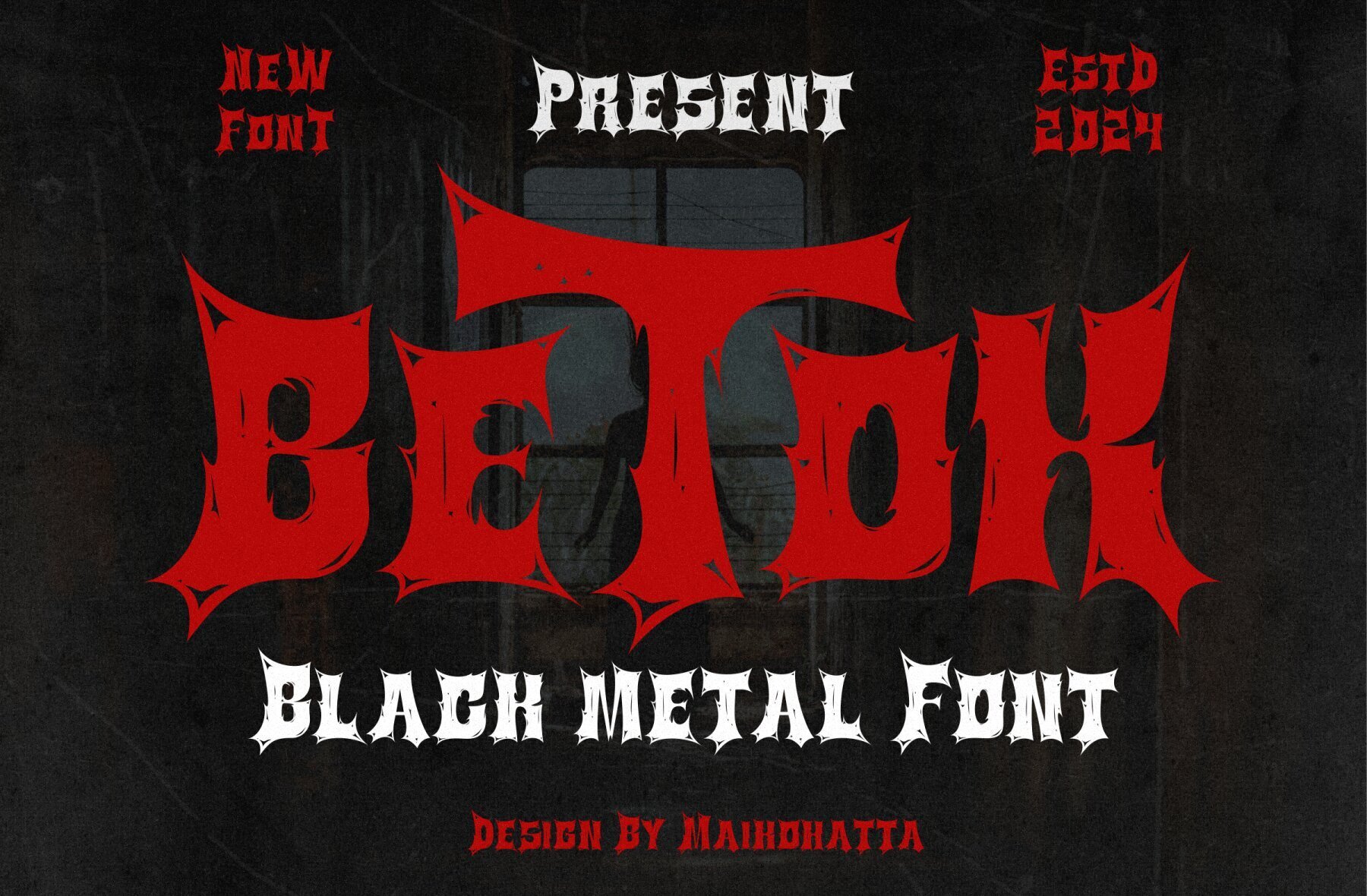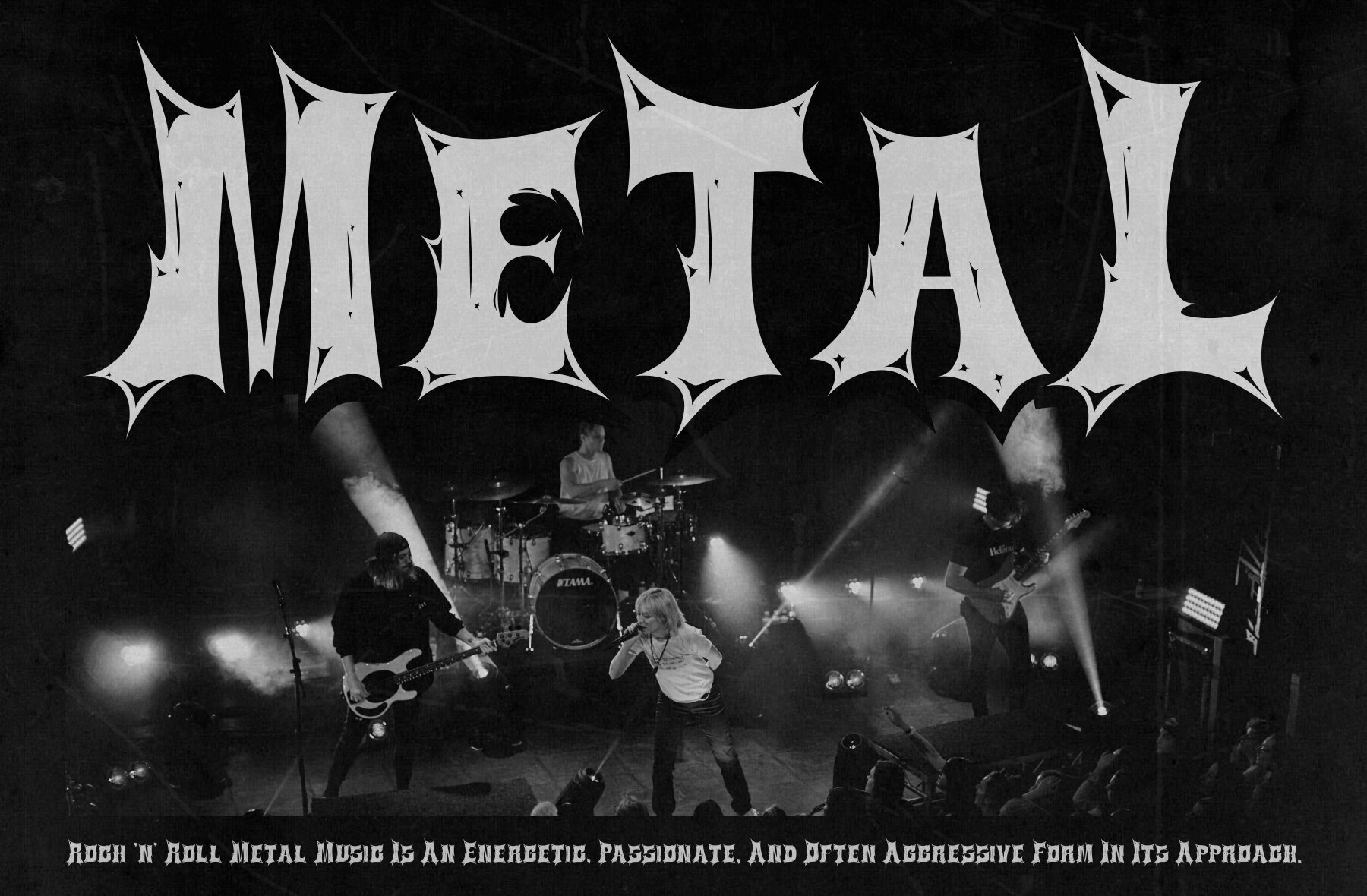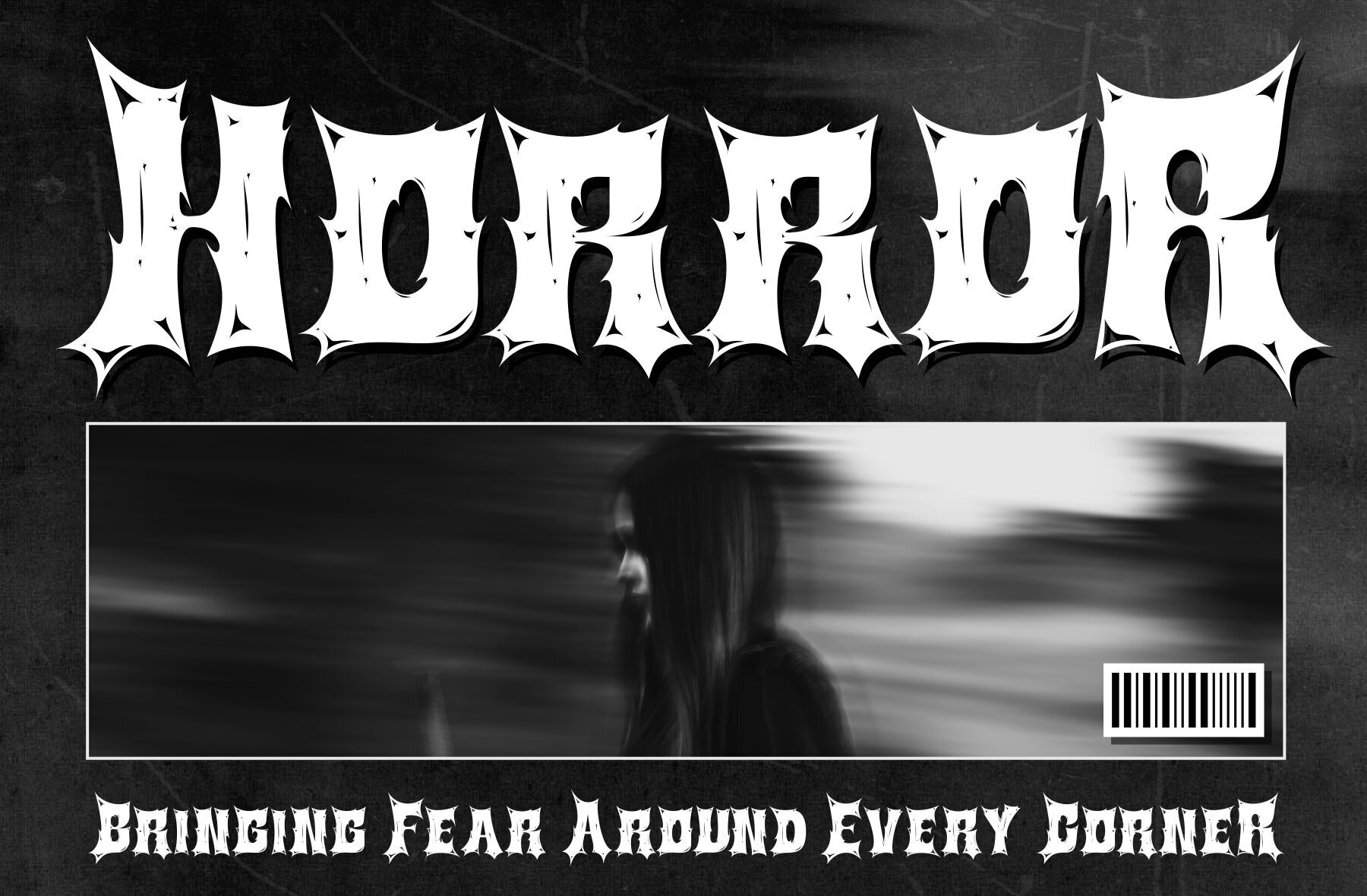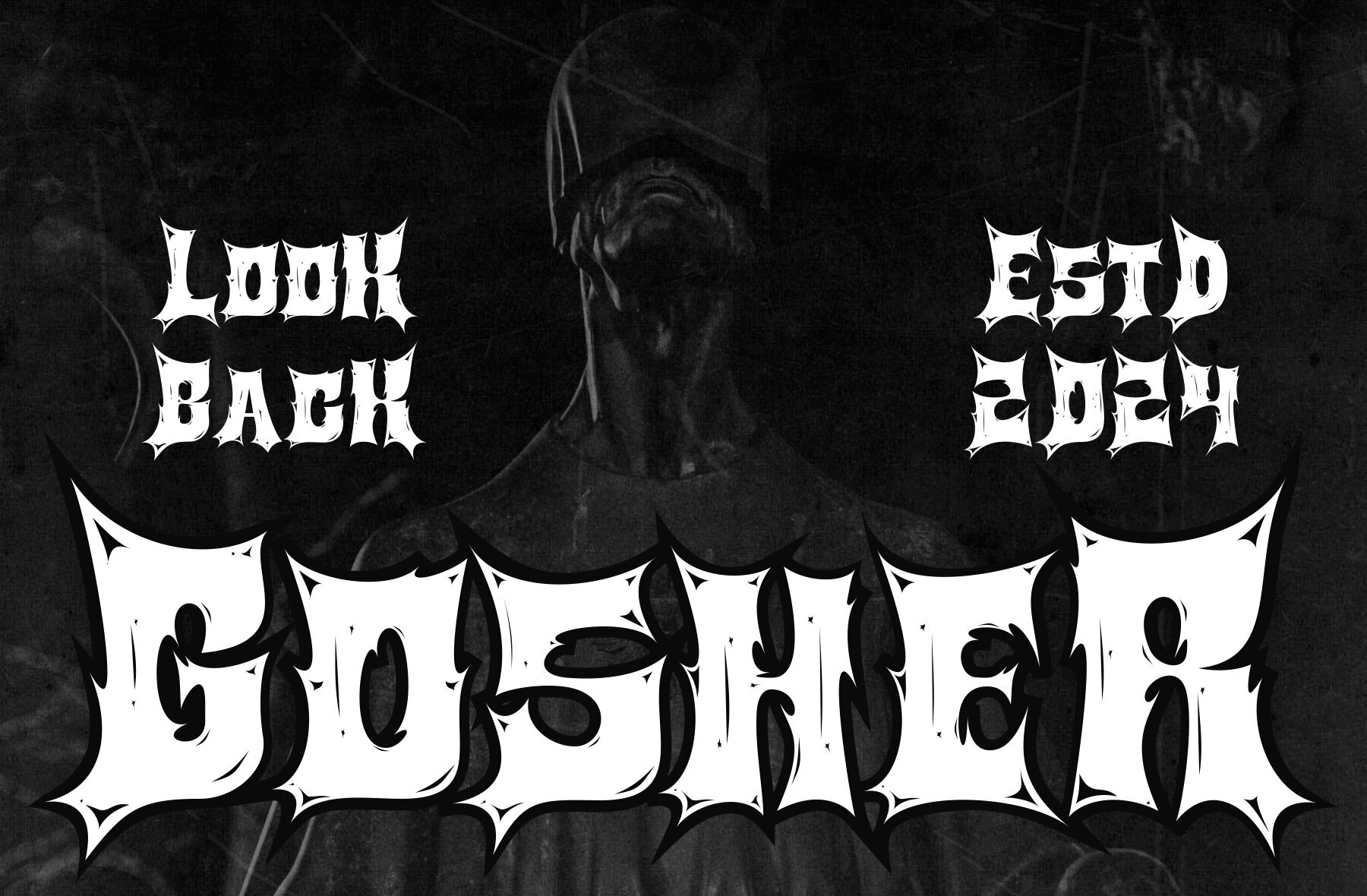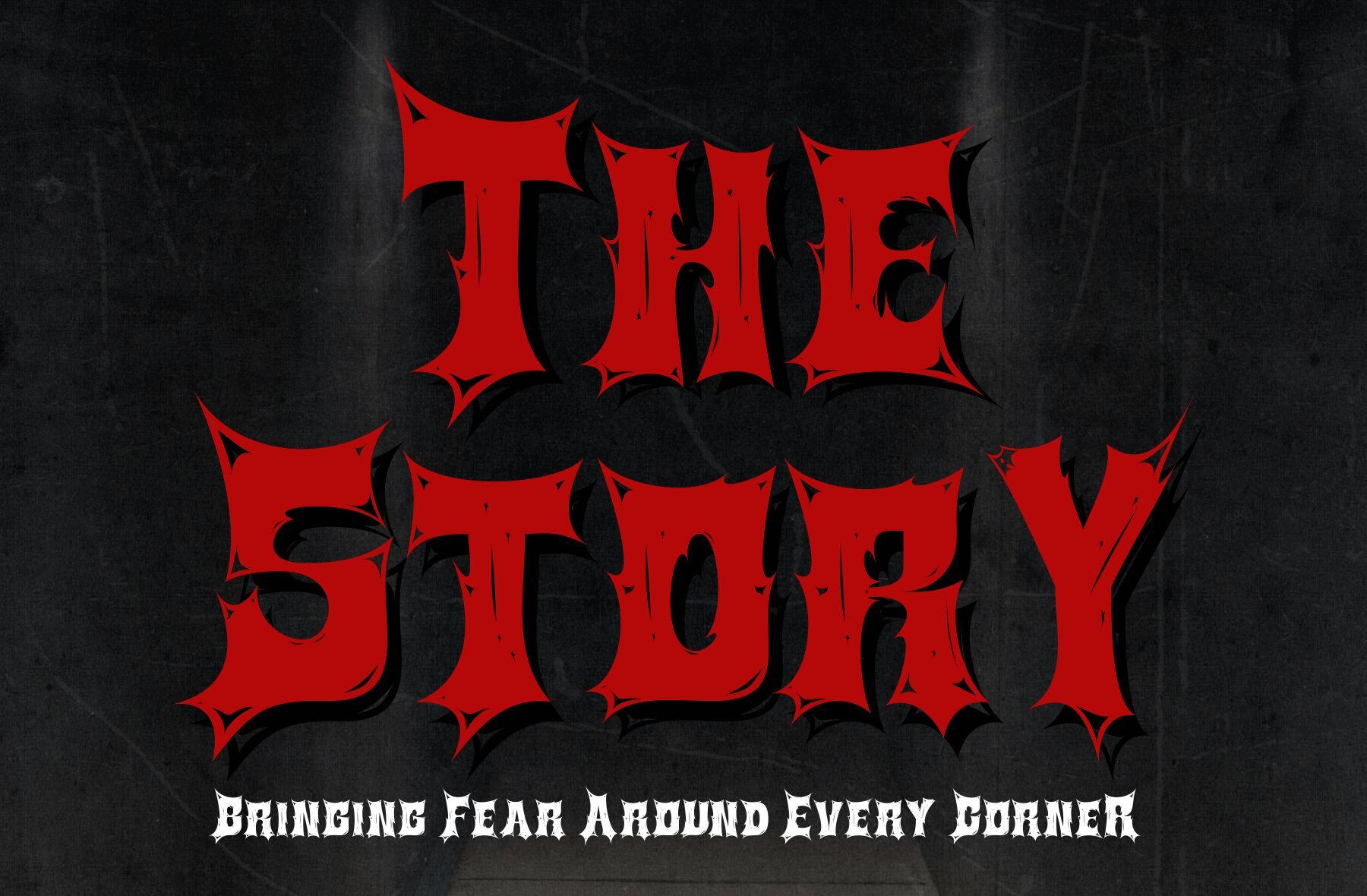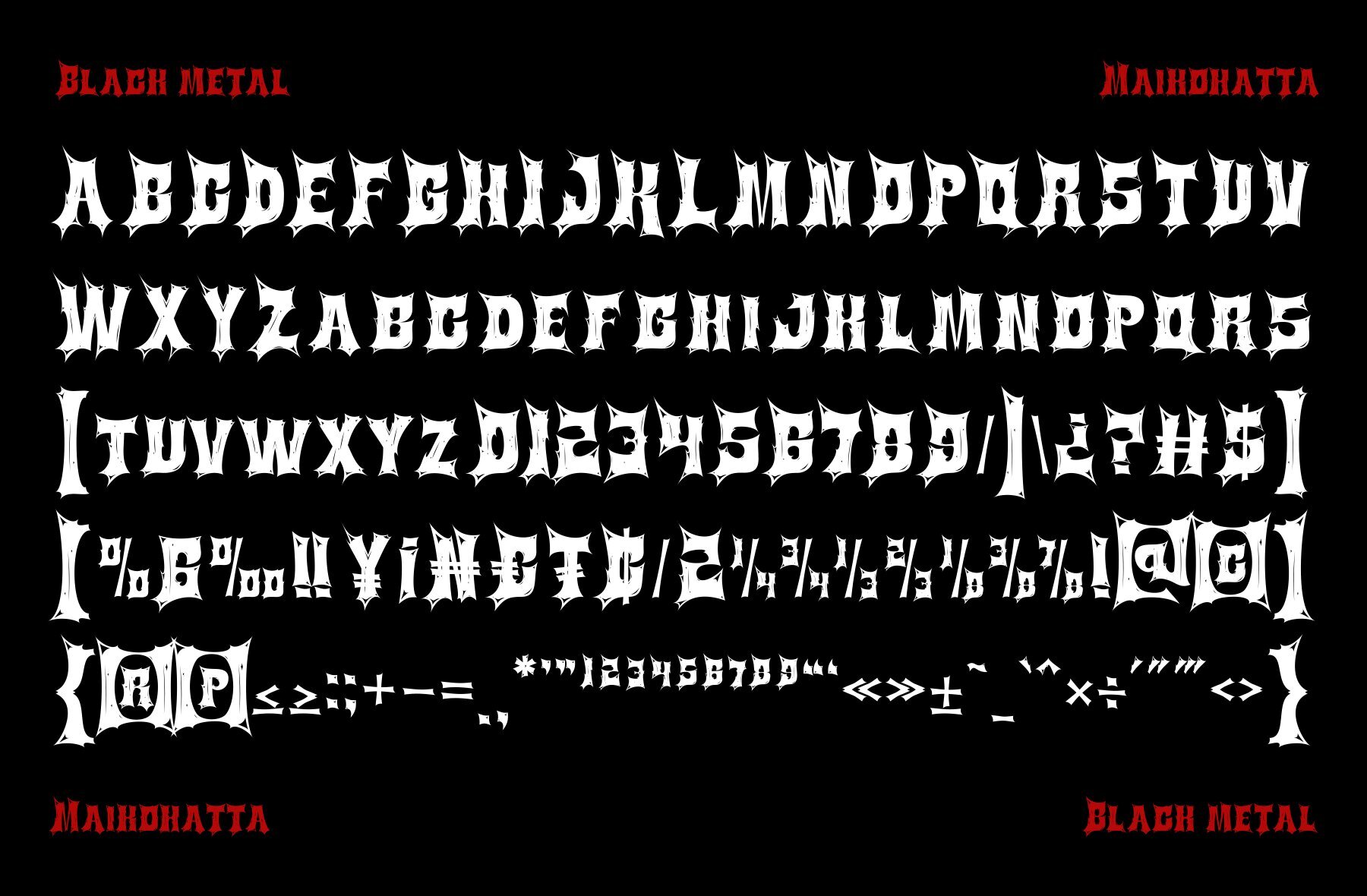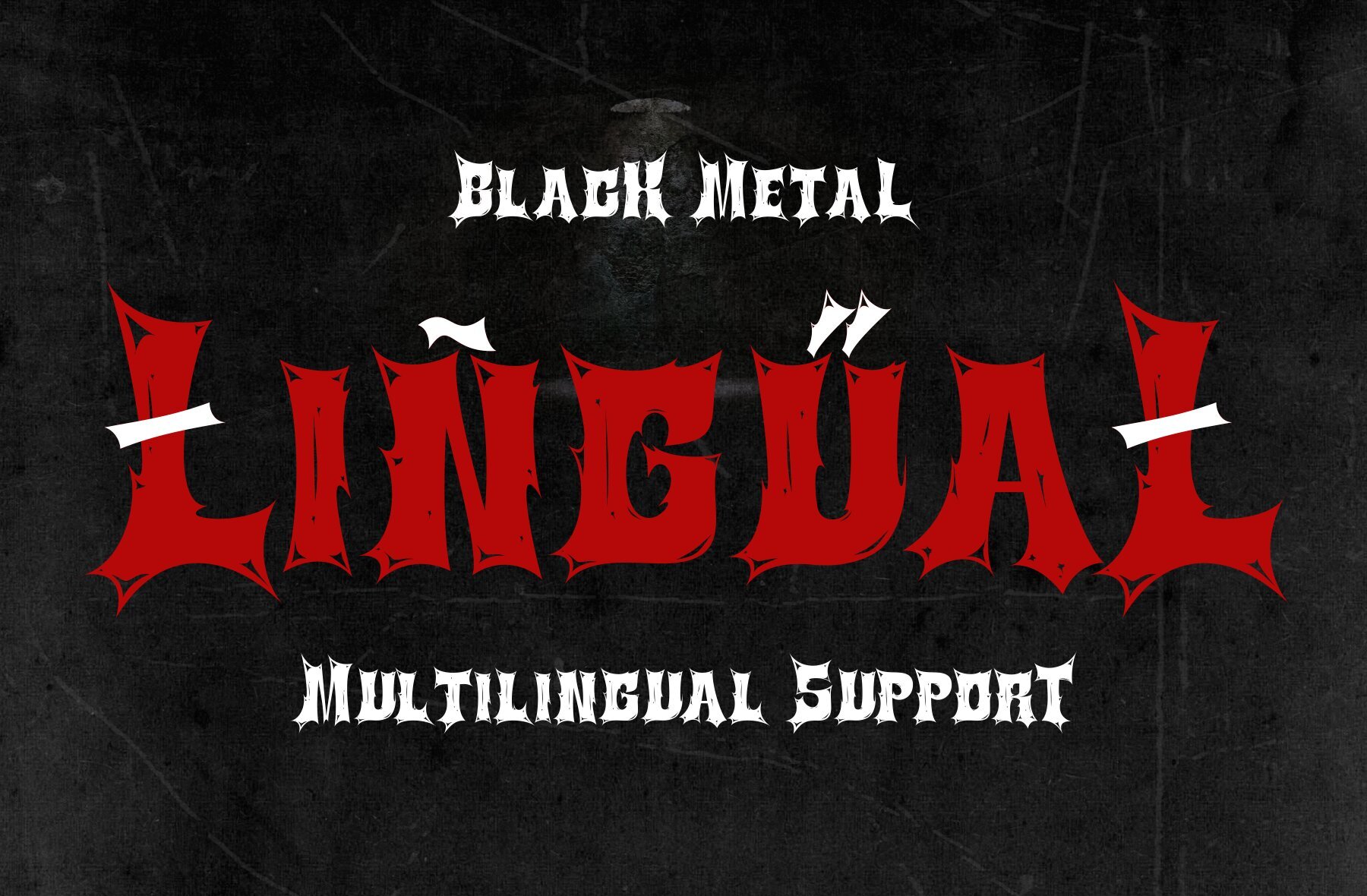
Betok Font
Betok Regular
This blackletter decorative font exudes a gothic and dramatic style, perfect for designs that require a bold and intense presence. The sharp, spiky characters make it ideal for headlines, branding, logos, and fantasy-themed projects. Its intricate and ornate detailing adds a vintage and medieval touch, making it suitable for both historical and retro design elements.